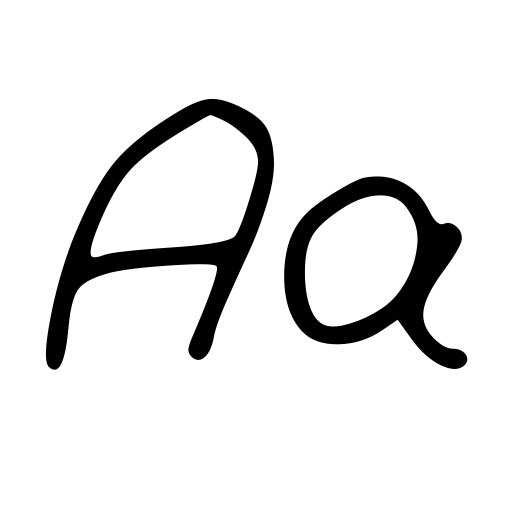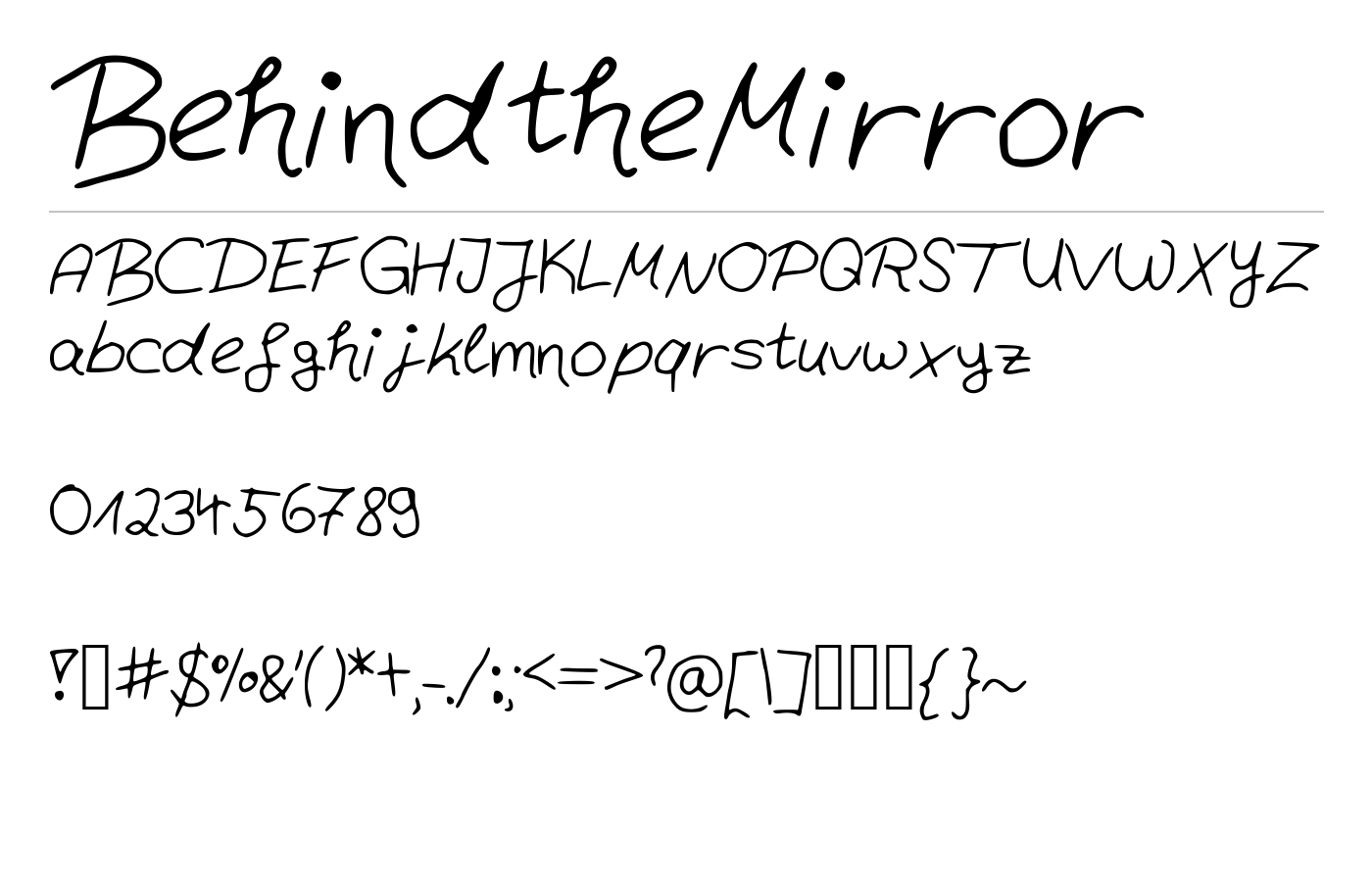
BehindtheMirror is a playful, casual handwritten font with a thin weight and slightly condensed width that gives it an intimate, personal feel. Its irregular shapes and light stroke contrast create a lively, organic style perfect for informal branding, creative projects, and expressive headlines where a friendly, approachable voice is desired. This font works well in designs needing a unique, charming touch that feels both modern and hand-crafted.
BehindtheMirror Font
About BehindtheMirror Font